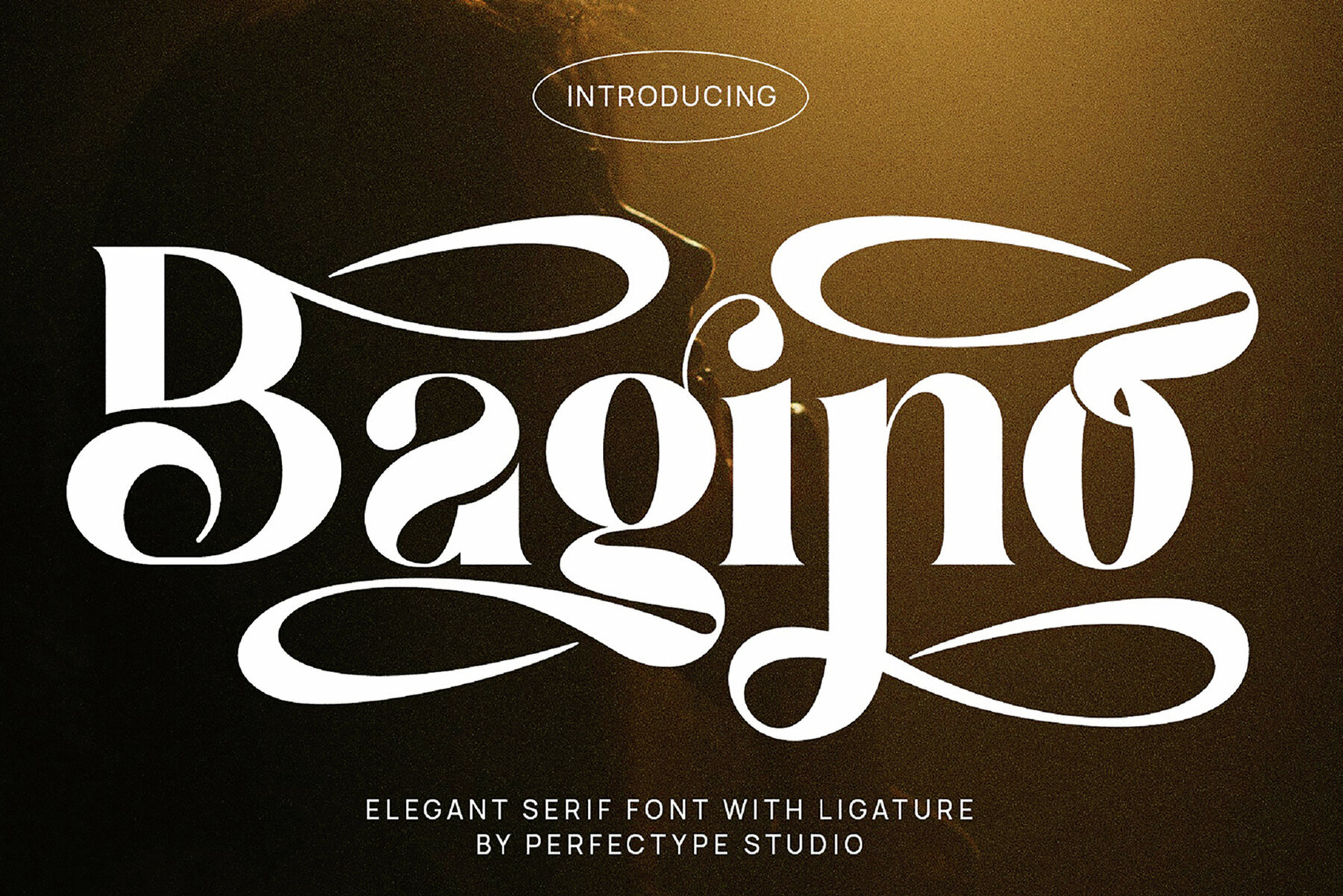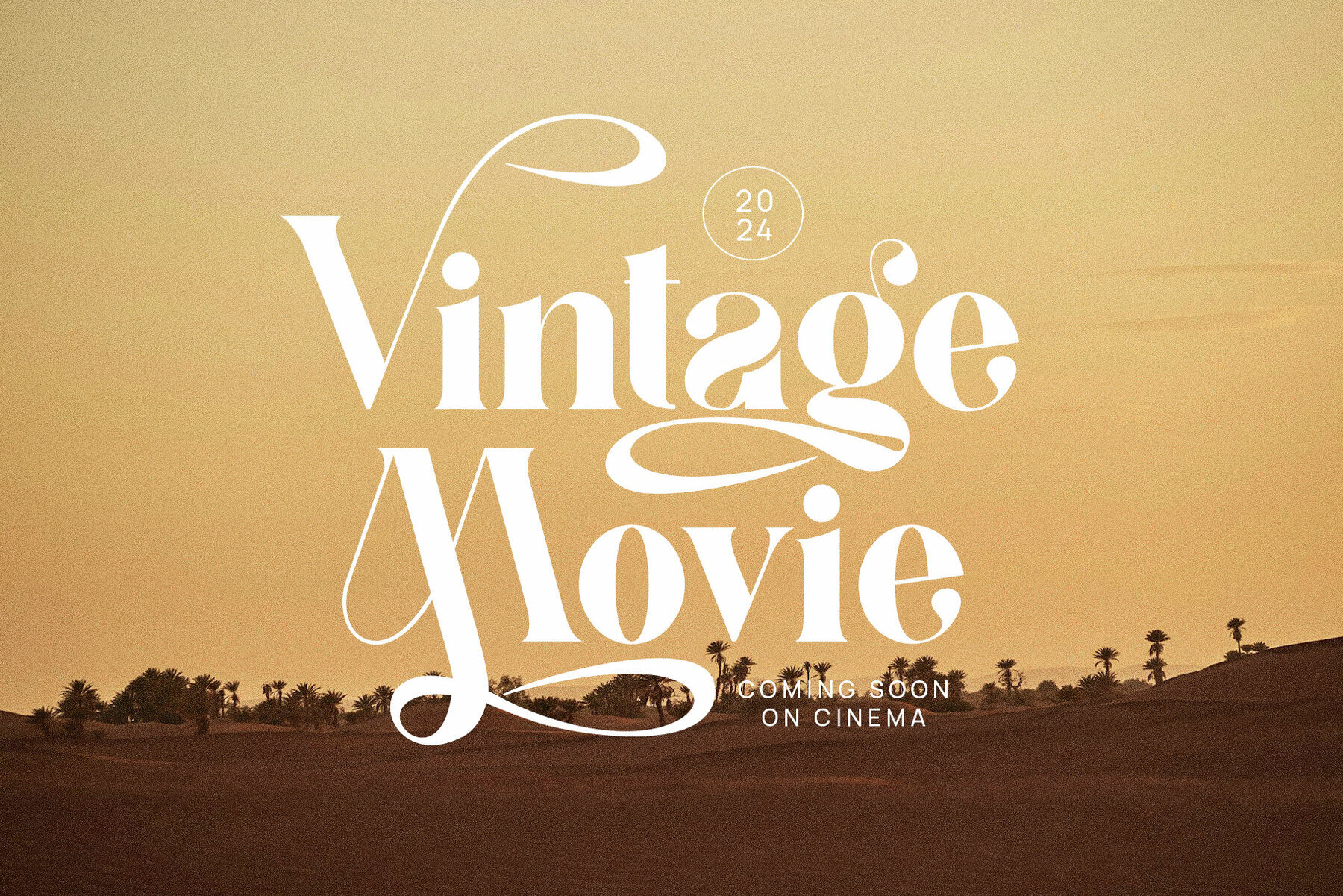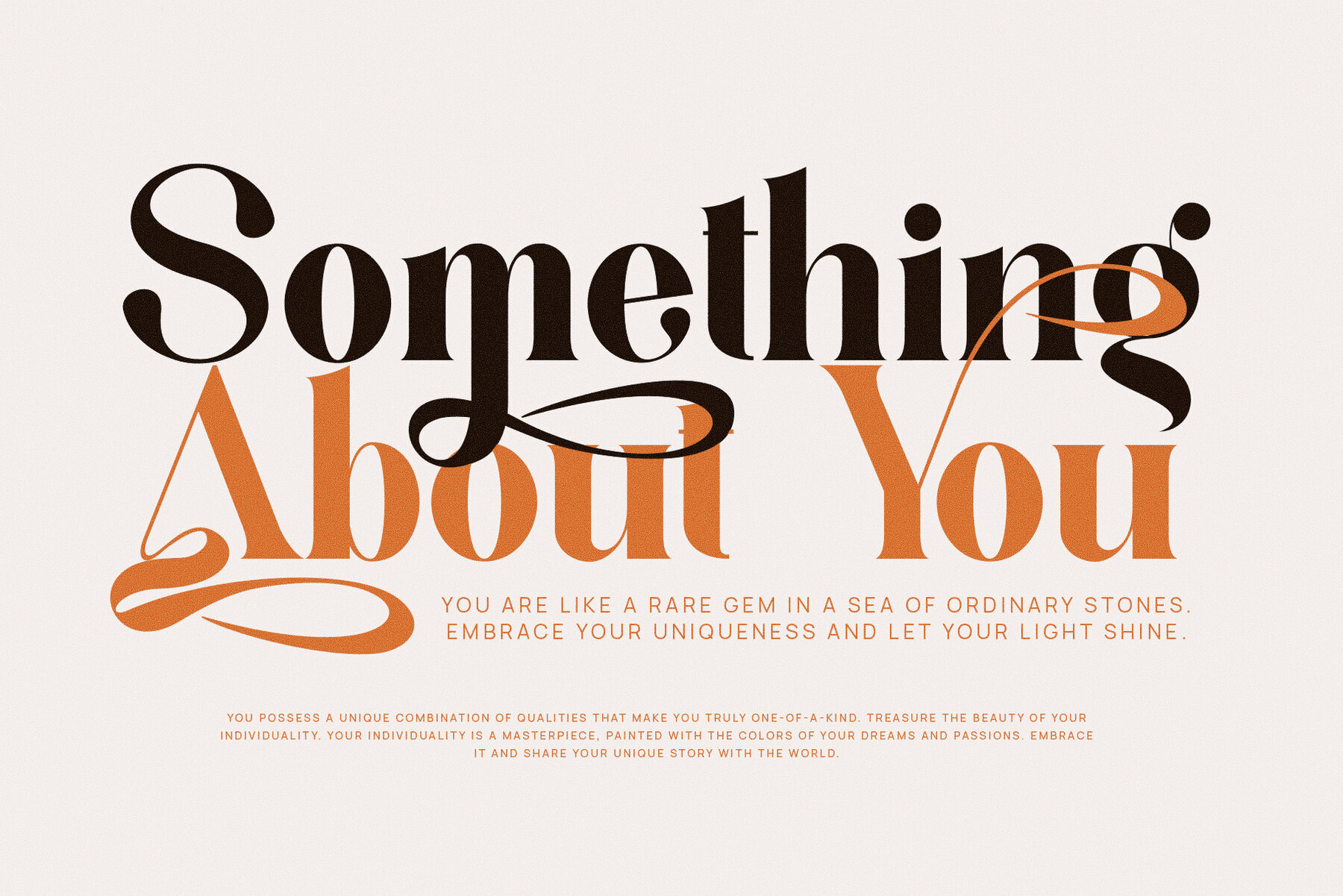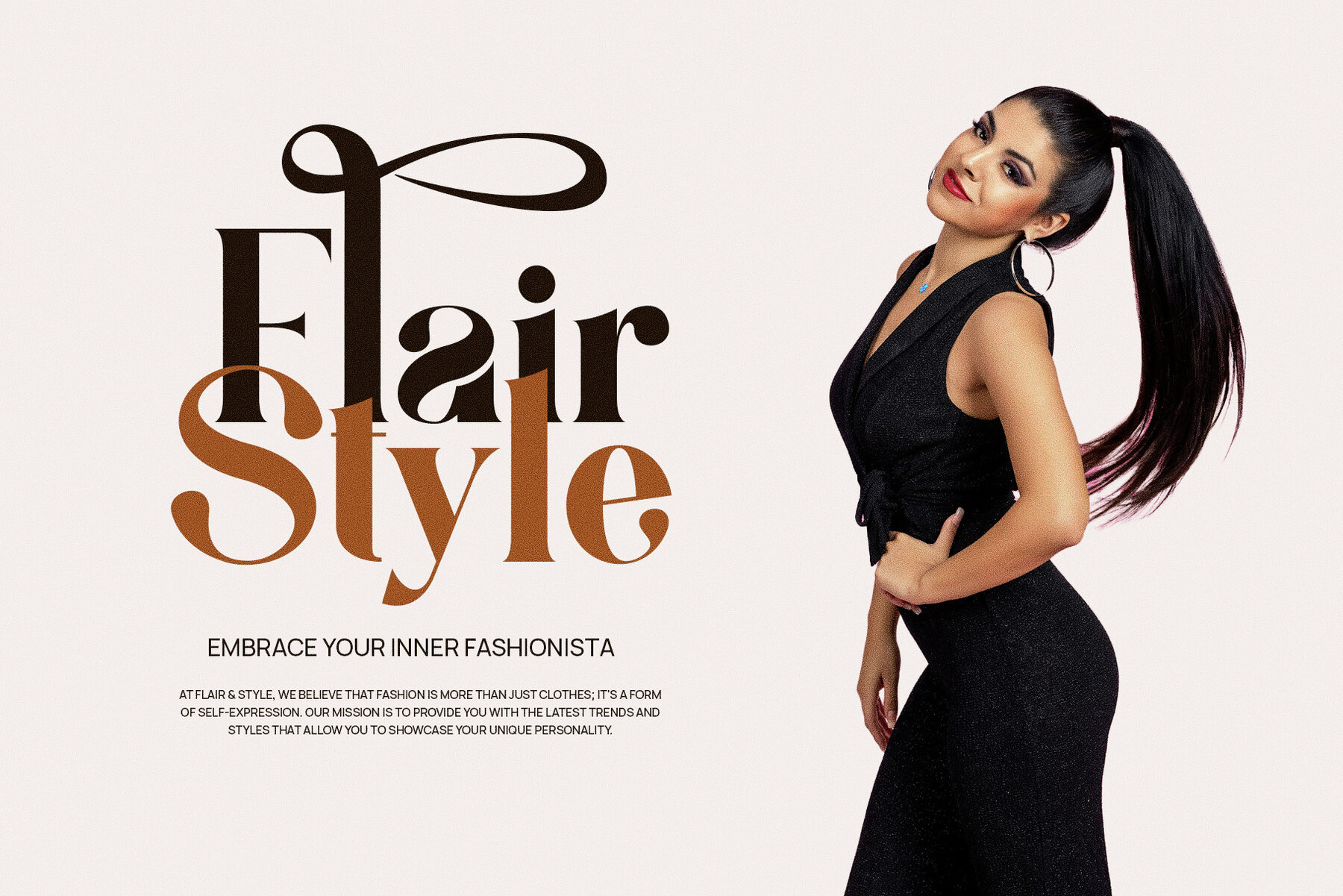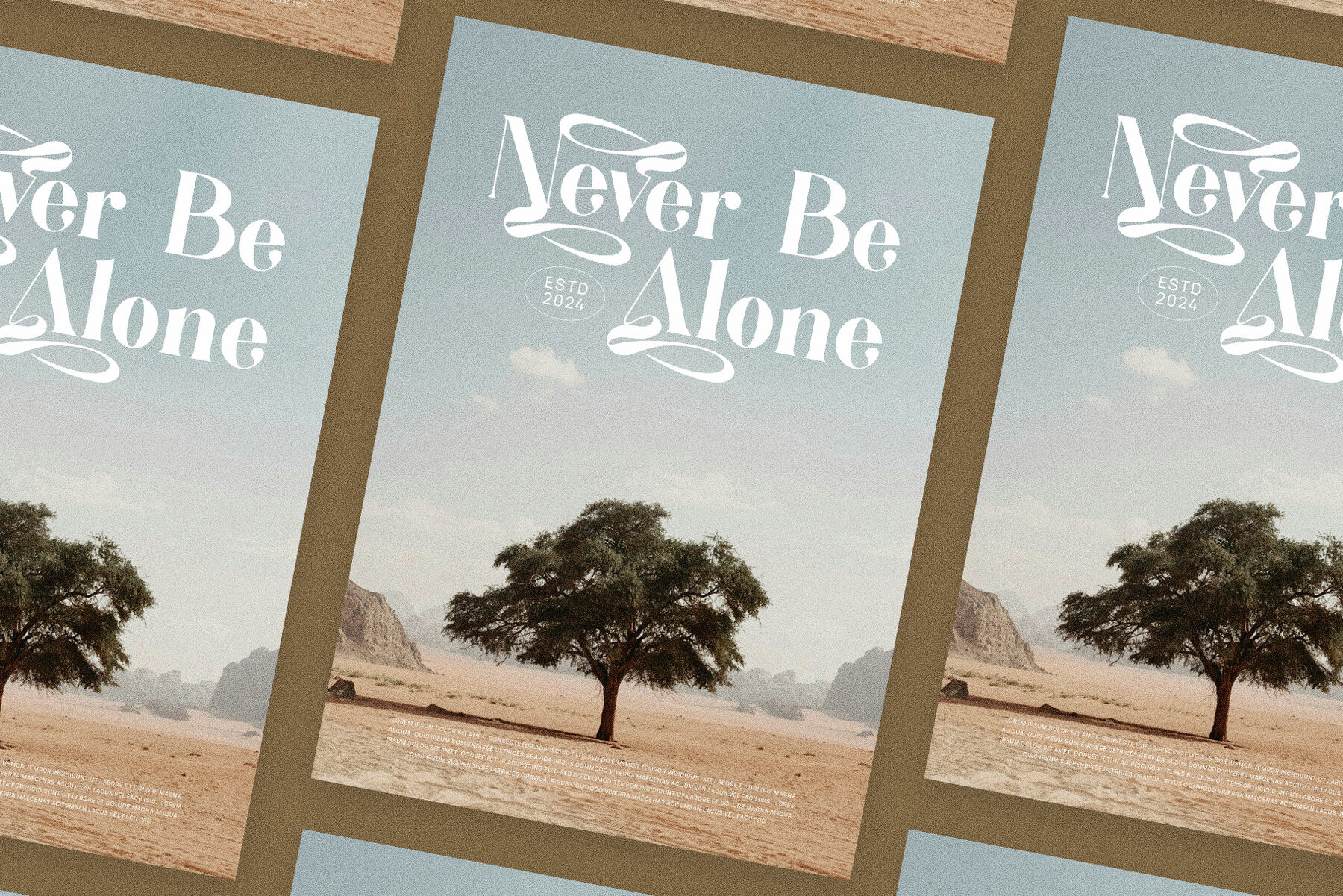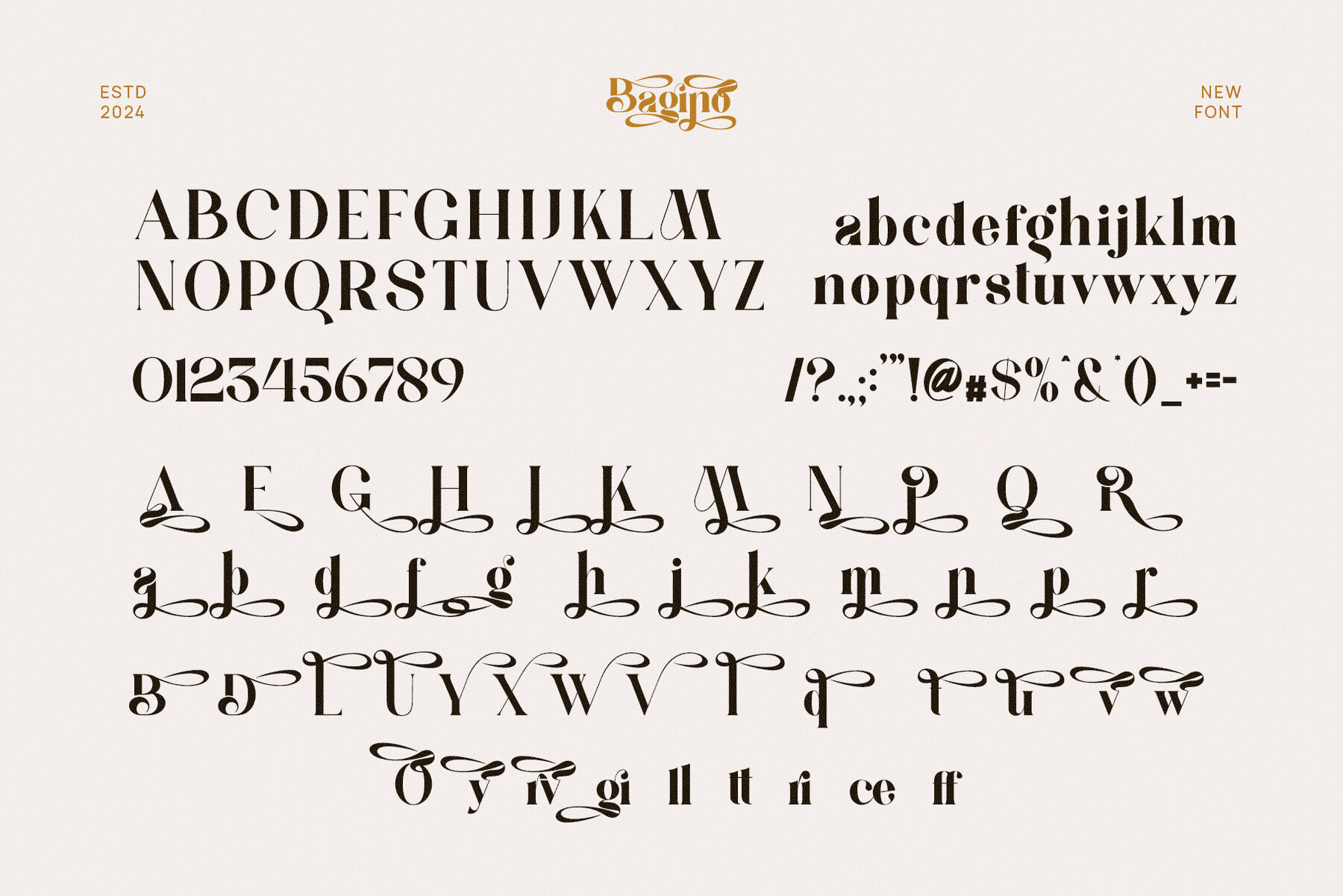
Bagino Font
Bagino
Bagino Elegant Serif Font is a sophisticated typeface that combines elegance with versatility, making it ideal for high-end projects. Its carefully crafted ligatures and alternates infuse sophistication into any design, making it a perfect choice for logo design, branding, and advertising. The refined letterforms and graceful curves lend a luxurious, professional aesthetic, making it suitable for creating a distinct visual identity for luxury brands, high-end boutiques, or gourmet food labels.
This serif font ensures a premium and polished appearance across various media types, including websites, social media, magazines, advertisements, and product packaging. Bagino's intricate ligatures and thoughtfully designed alternates provide versatility and personality, allowing for unique and custom typography that stands out. Ideal for print layouts, brochures, and other marketing materials, it prioritizes elegance and readability. Whether you're working on a modern website design, crafting a beautiful logo, or designing a luxury product, Bagino offers the flexibility and sophistication needed for memorable and impactful designs.